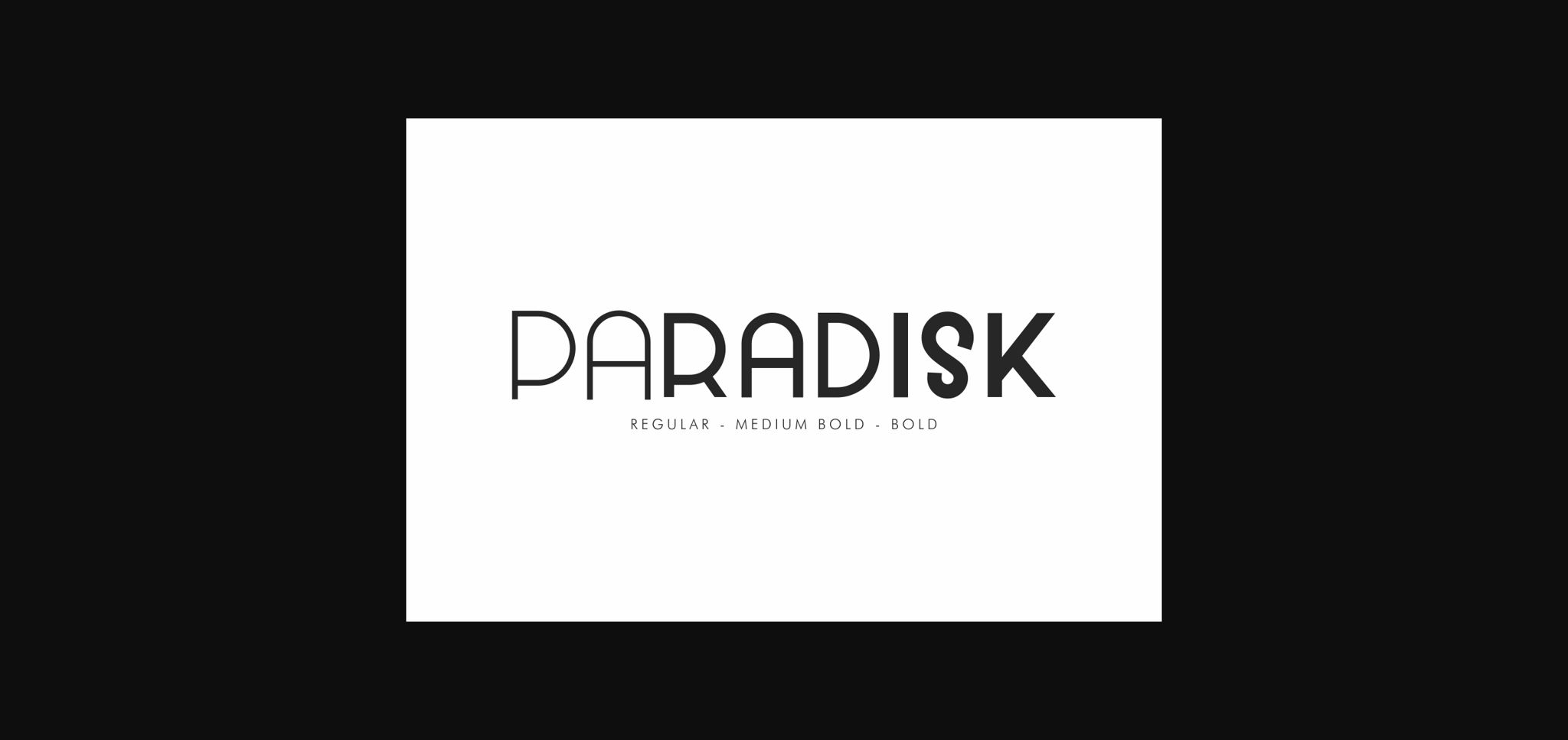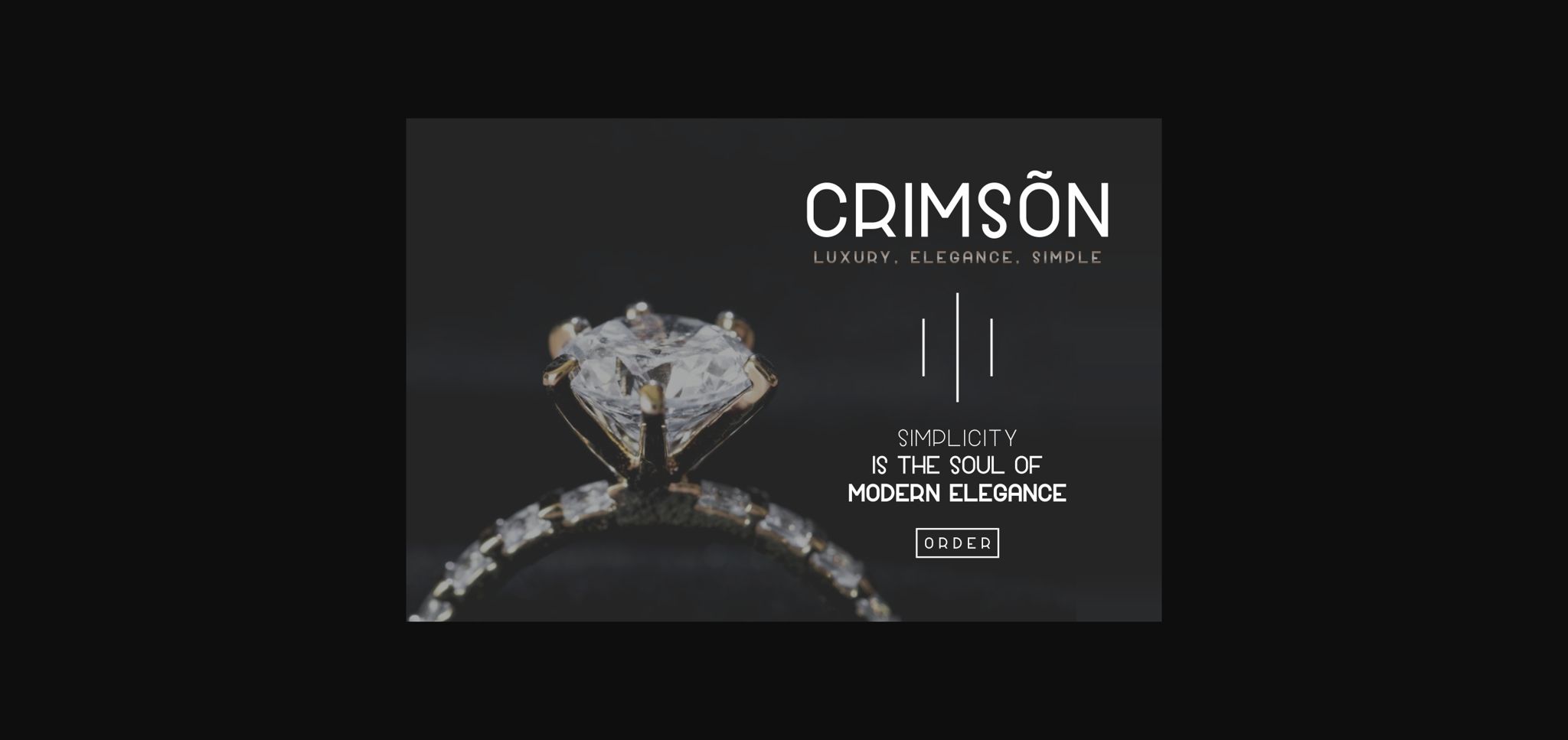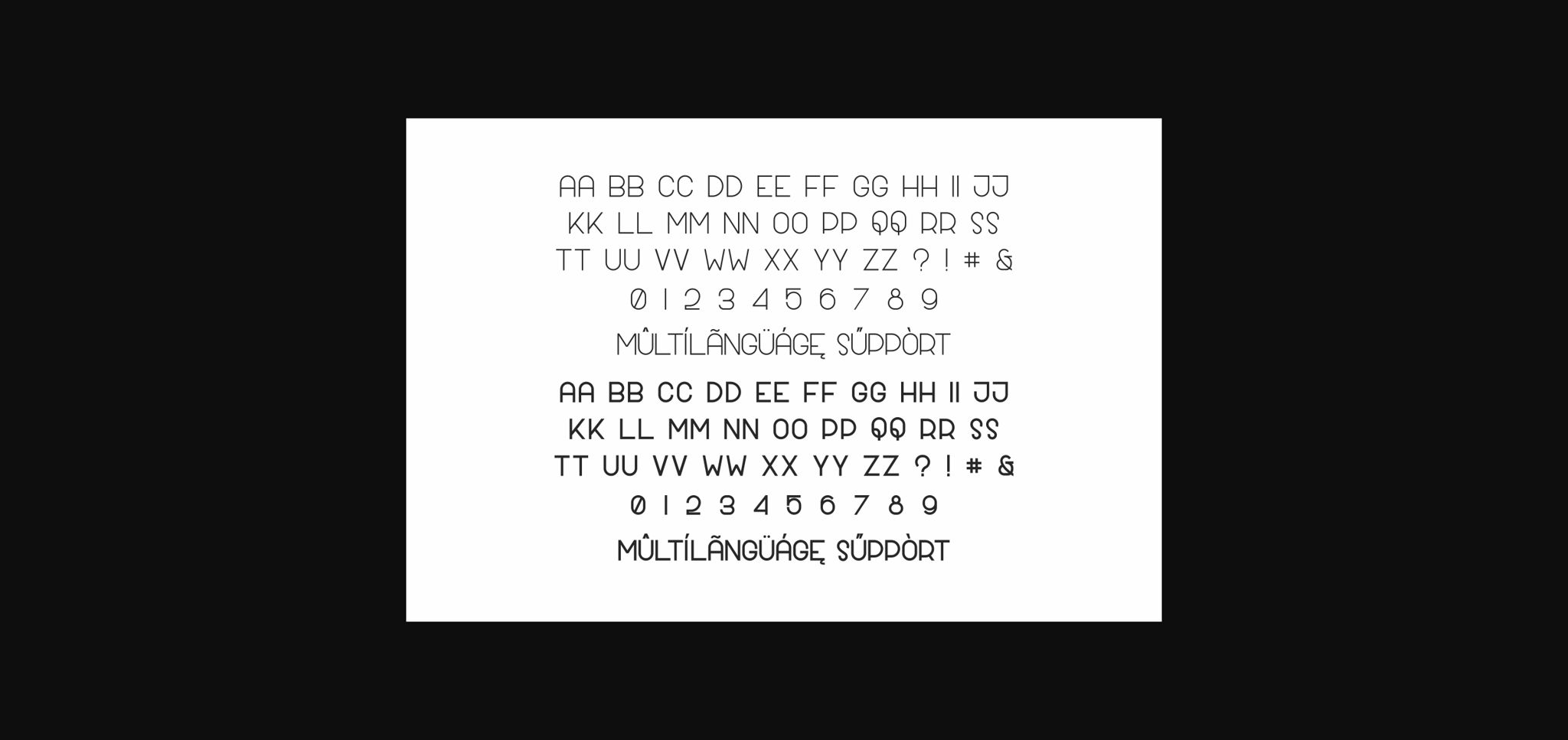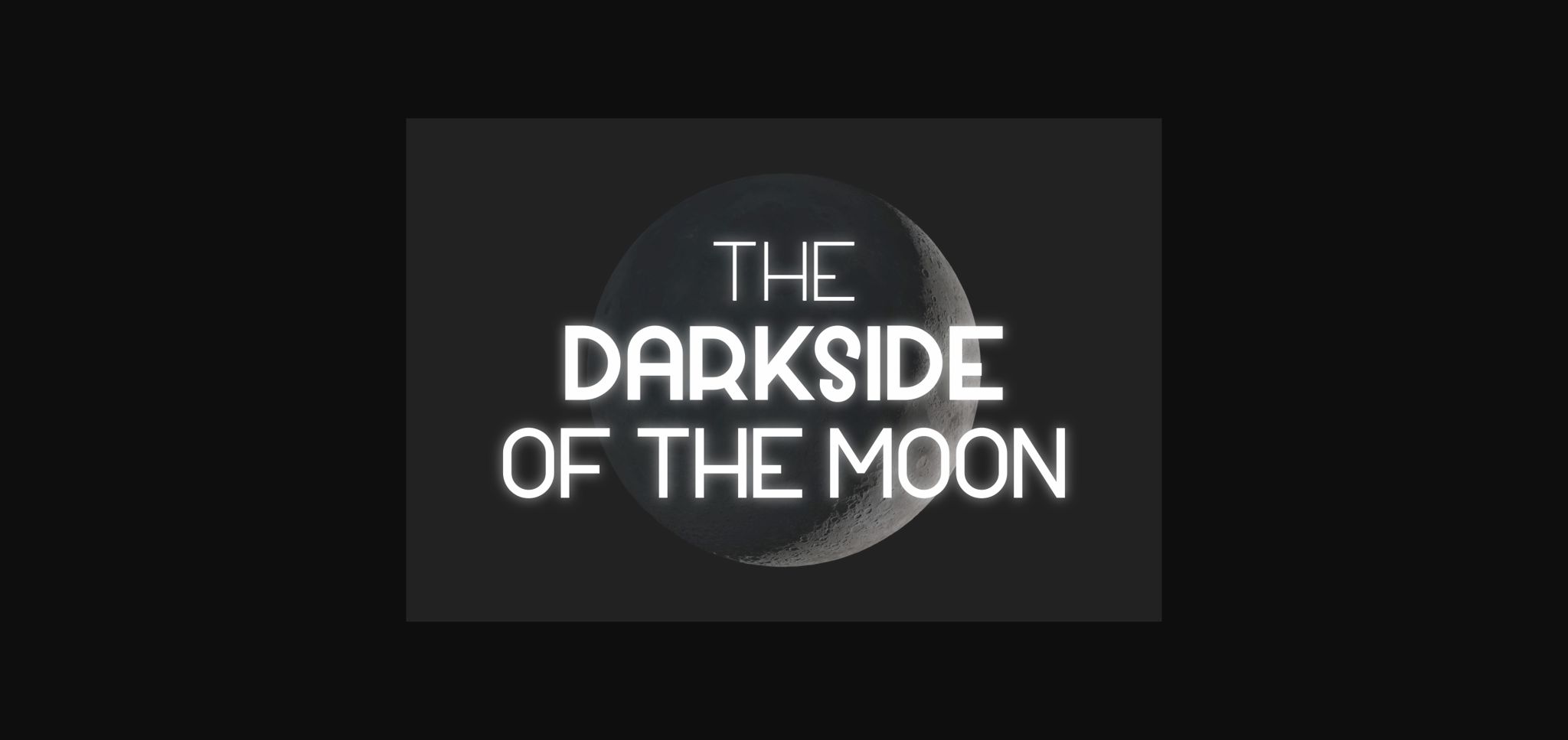
About Paradisk Font
Paradisk emerges as a contemporary sans serif font, infusing a modern touch into every project it graces. With its meticulously crafted design, this font has the power to become a beloved staple in your toolkit, elevating each of your creative concepts to new heights.
Designed with precision and care, Paradisk exudes a sense of modernity that effortlessly enhances the visual appeal of any project. Whether it’s branding materials, advertisements, web designs, or print publications, this font lends a sleek and sophisticated edge that captivates audiences.
With its clean lines and balanced proportions, Paradisk strikes the perfect balance between professionalism and style. Its versatility allows it to seamlessly adapt to various design contexts, ensuring consistency and coherence across all your creative endeavors.
Incorporating Paradisk into your projects promises to breathe fresh life into them, transforming ordinary ideas into extraordinary works of art. Whether you’re a seasoned designer or a novice creator, Paradisk empowers you to express your creativity with confidence and flair.
In summary, Paradisk is more than just a font; it’s a powerful tool that empowers you to unleash your creativity and bring your vision to life. With its modern aesthetic and masterful design, Paradisk has the potential to elevate each of your creative ideas to new heights of excellence. Embrace Paradisk as your go-to font and experience the transformative impact it has on your projects.
Paradisk’s sleek and contemporary design ensures it’s a standout choice for any project. Its modern feel adds a touch of sophistication to branding, advertising, web design, and more. With its versatility and aesthetic appeal, Paradisk has the potential to elevate your creative endeavors to the next level.
Embrace Paradisk as your trusted font companion, and watch as it transforms your ideas into polished and professional creations that command attention and leave a lasting impression. Whether you’re designing for digital or print, Paradisk’s masterful design and modern flair make it an invaluable asset in your creative arsenal. Make Paradisk your go-to font, and unlock the potential to take your projects to new heights of excellence and innovation.